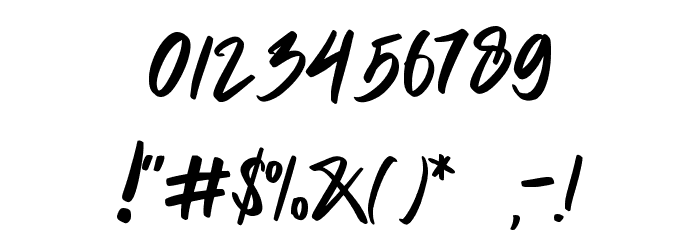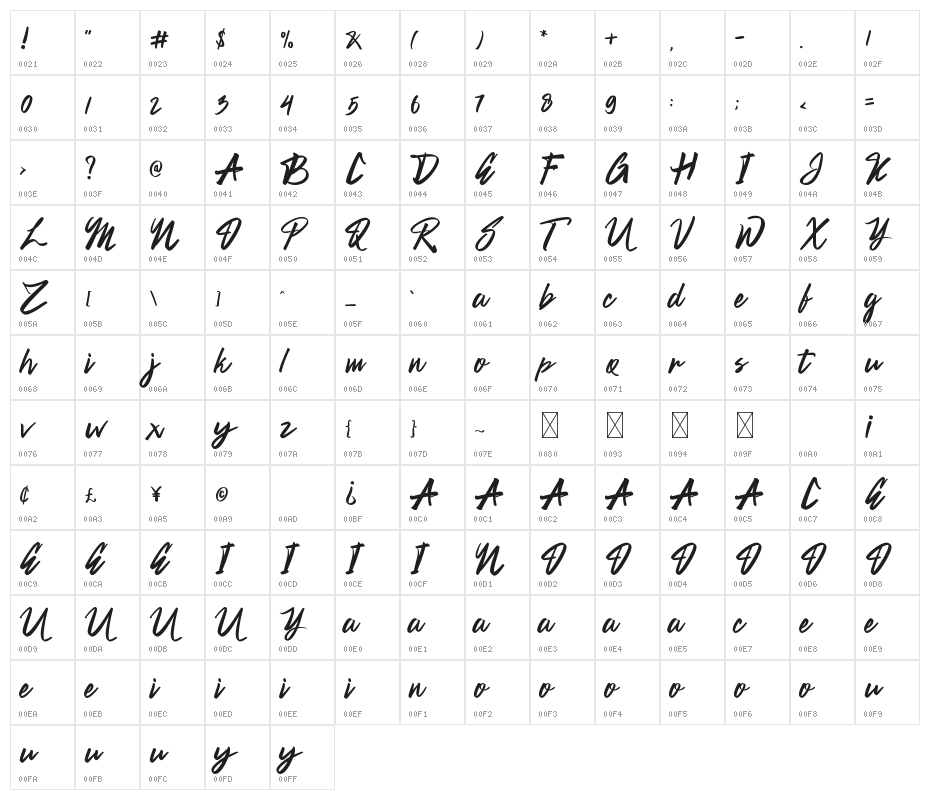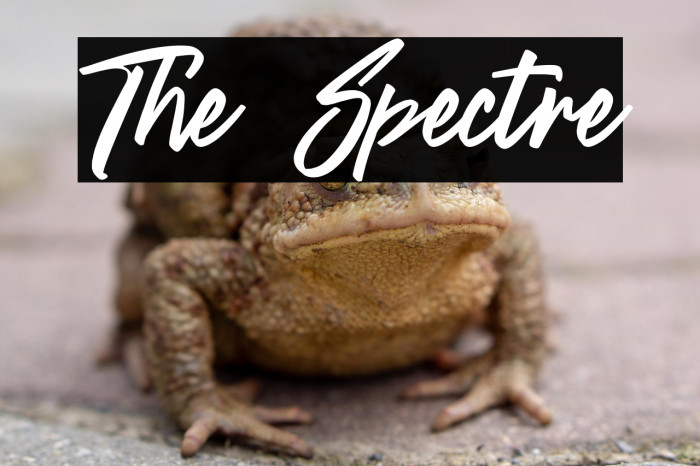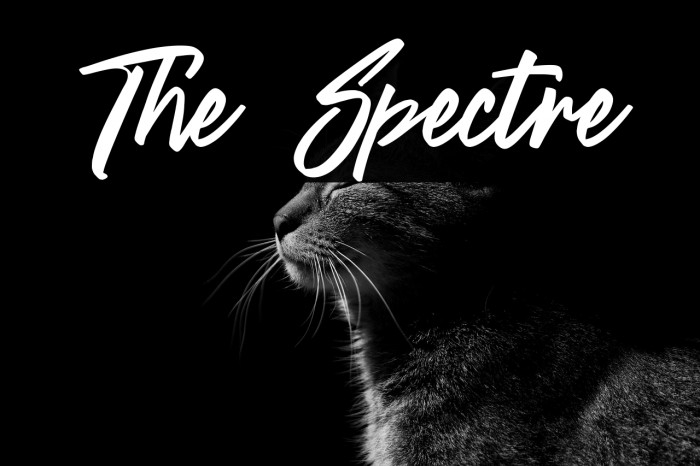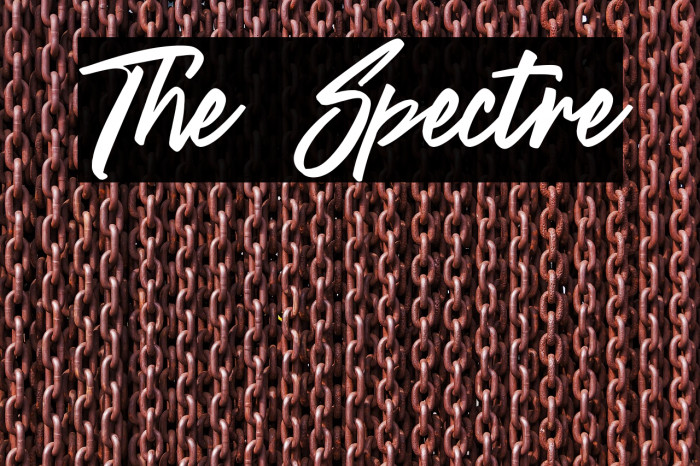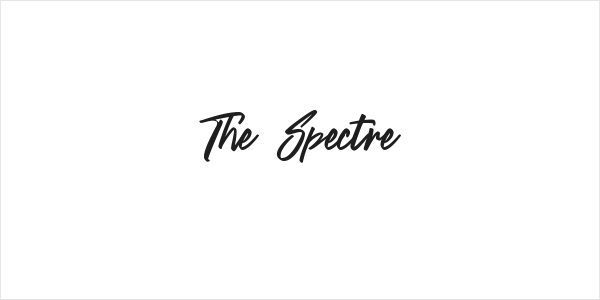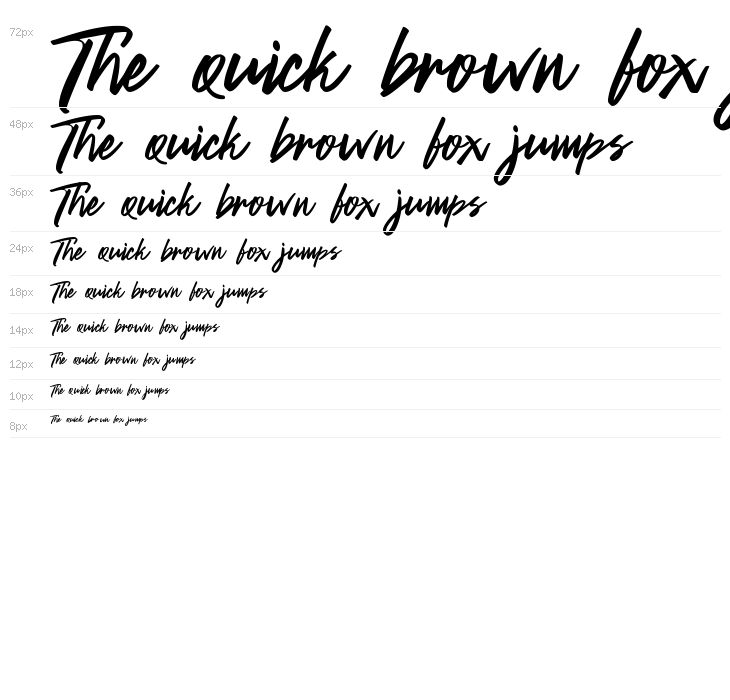
The Spectre Font
The Spectre Description
This font features a dynamic and expressive script style, characterized by its fluid, cursive strokes and a sense of motion. The letters are interconnected, creating a seamless flow that mimics natural handwriting. The uppercase letters are bold and prominent, while the lowercase letters maintain a consistent rhythm and elegance. The numerals and special characters are crafted with the same attention to detail, ensuring uniformity across the typeface. This font exudes a sense of creativity and personal touch, making it ideal for projects that require a handwritten aesthetic.
| Proposed Projects | Ideal for wedding invitations, greeting cards, branding, and artistic projects that require a personal touch. |